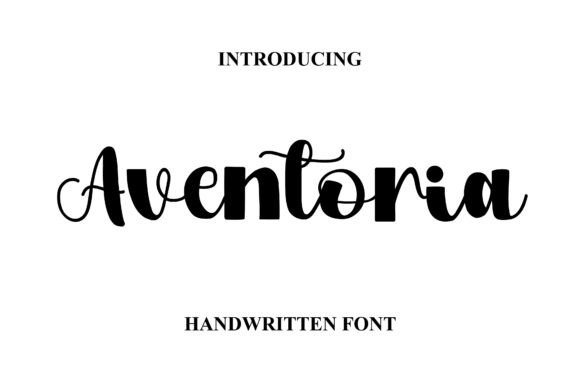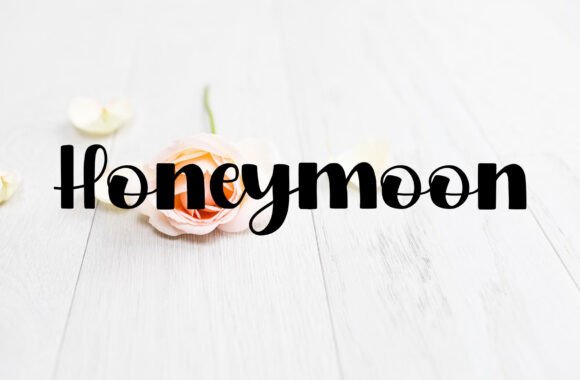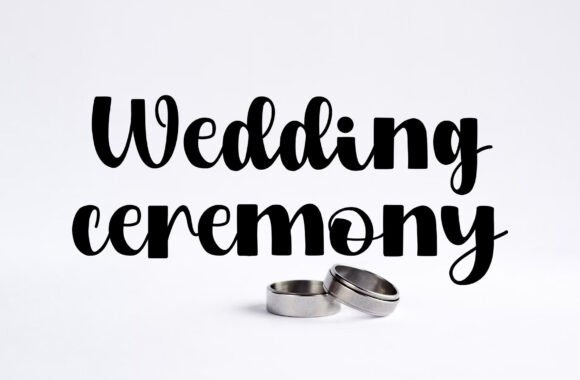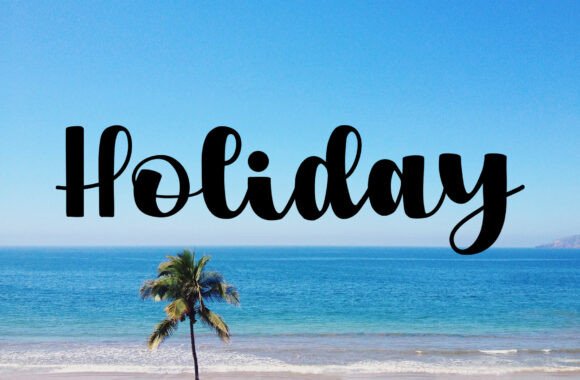
Aventoria Font: Elegant Handwritten Script for Wedding & Logo Design
About the Aventoria Font
Step up your design game with Aventoria Font, a font that exudes confidence and style. Aventoria is a beautiful handwritten cursive font that effortlessly blends sophistication with a personal, organic touch. This gentle font will look gorgeous on a variety of design ideas. It will add a joyful and romantic touch to each of your projects! Perfectly fit for branding, logo, wedding things, greeting cards, fashion, lookbook, marketing promotion, and any time you want your design to look fancy, elegant but still casual.
Aventoria’s elegant yet casual feel makes it ideal for headlines, short text blocks in branding materials, and projects requiring a touch of handwritten charm, such as invitations or packaging for luxury goods. Its organic nature, however, limits its suitability for body text or UI elements; the cursive style hinders readability in longer passages.
For optimal results, pair Aventoria with a clean sans-serif like Montserrat for a modern contrast, or a classic serif such as Garamond for a more timeless feel. A geometric sans-serif, such as Futura, could also offer a striking juxtaposition against its flowing forms.
Aventoria projects a sophisticated yet approachable personality; it’s both elegant and friendly, making it perfect for brands aiming for a balance of luxury and approachability.
Aventoria Font Usage Examples
Aventoria Font Example